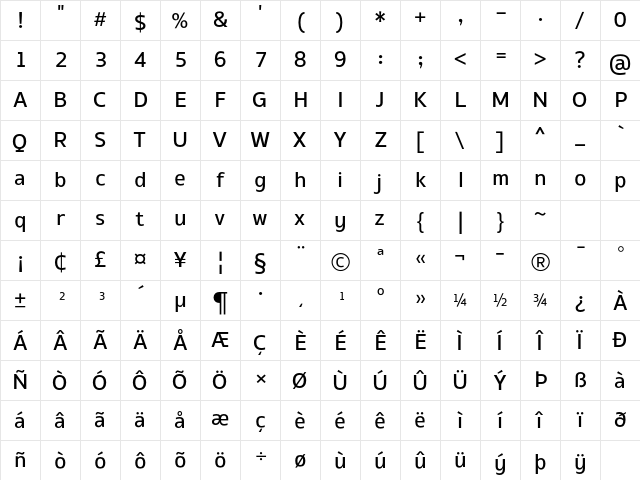
MP CDEQ TH Regular
Foundry: Cadson Demak Team at Cadson Demak Co., Ltd.
Designer: Cadson Demak
Design Context for MP CDEQ TH
MP CDEQ TH is a composed and adaptable typeface that performs quietly and consistently across a wide range of design contexts.
Who designed the MP CDEQ TH Regular font?
This font was published by Cadson Demak Team at Cadson Demak Co., Ltd.. Check the technical specs section for copyright and designer details.